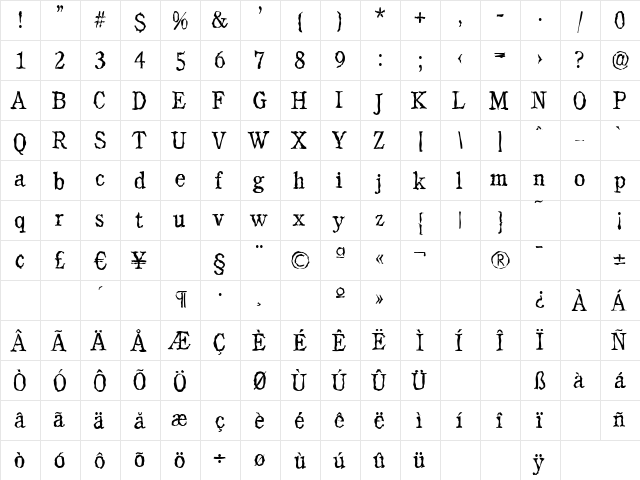
CalgaryRandom-Light Regular Font Preview
CalgaryRandom-Light Regular
CalgaryRandom-Light Regular Font Details
Design Context for CalgaryRandom-Light Typeface
CalgaryRandom-Light takes a measured approach to typography — its balanced proportions and neutral character make it a reliable workhorse for both digital and print work. Its slender proportions lend an understated elegance to any composition.